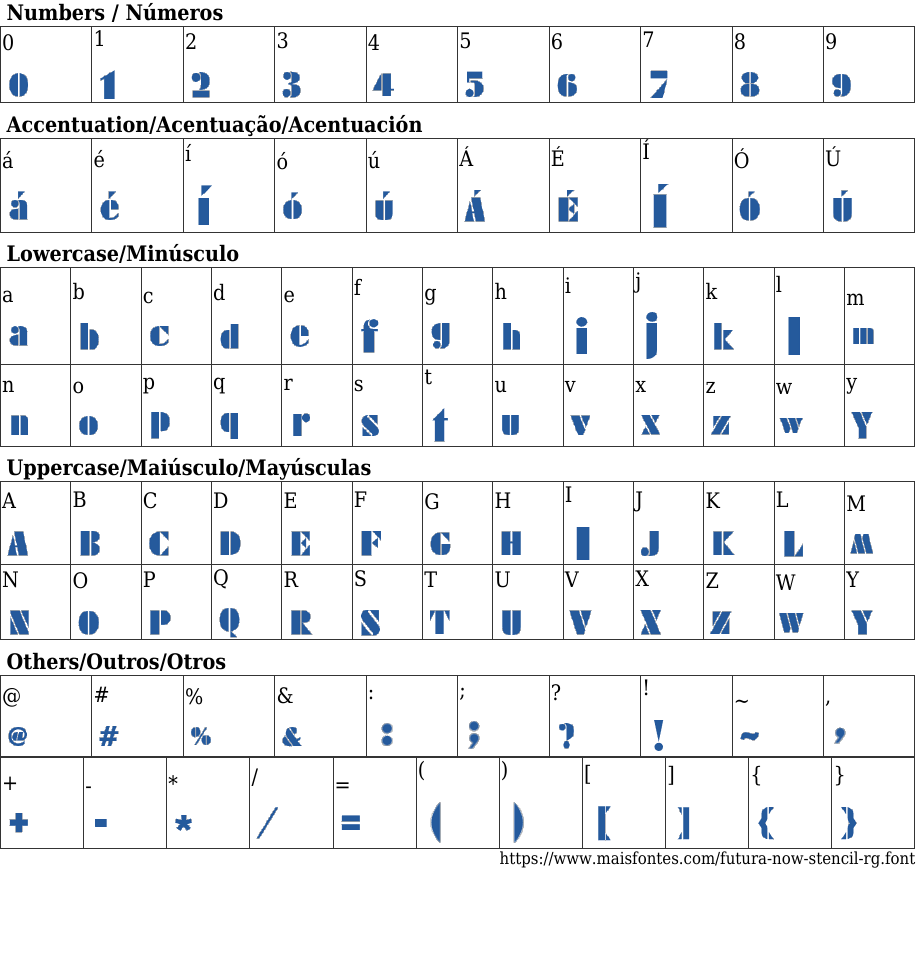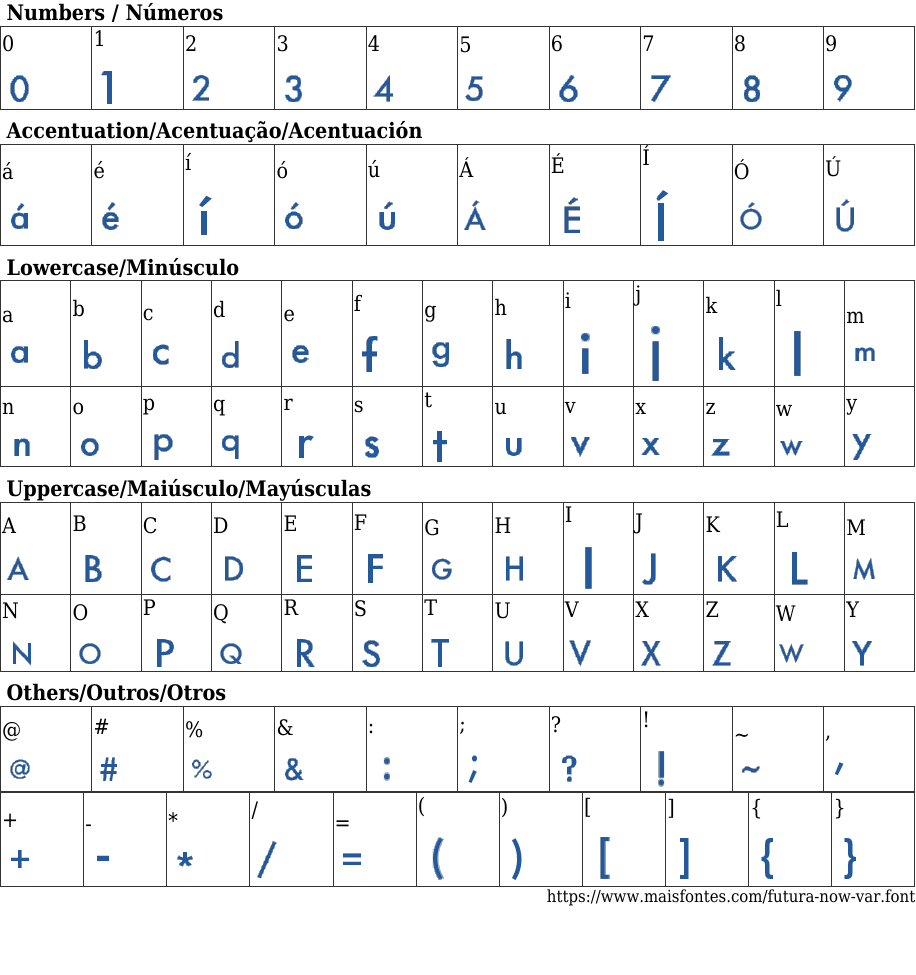
Futura Now Font
Futura Now Font - Learn about futura now, the definitive version of the iconic geometric sans serif font, and how it can help you with branding, design, and global.